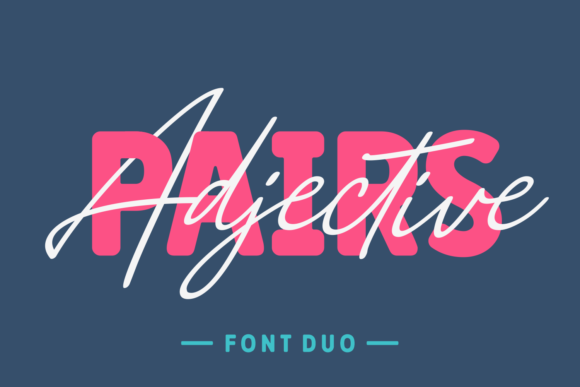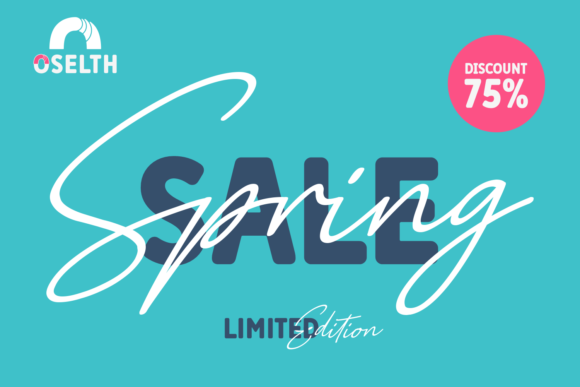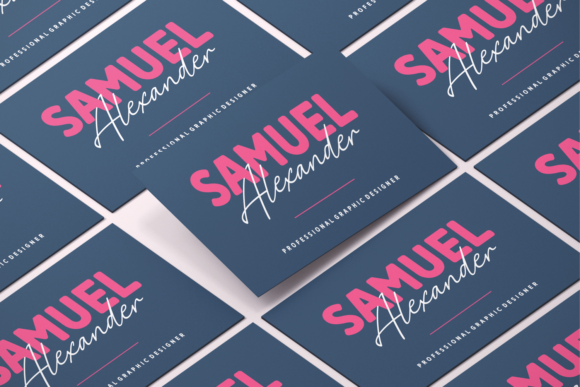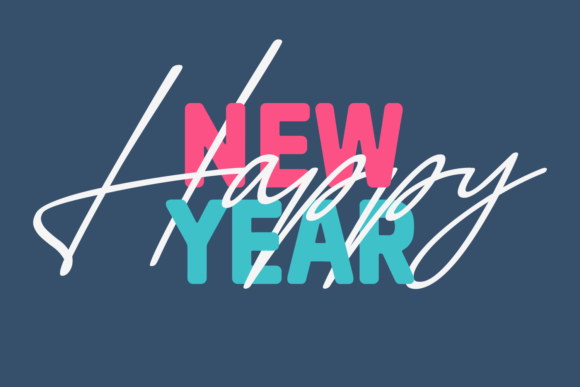
Adjective Pairs Font: Modern Font Pairing for Chic Branding & DIY Projects
About the Adjective Pairs Font
The Adjective Pairs Font offers a perfect balance of form and function for your design needs. Adjective Pairs is a lovely, versatile duo font (script and sans). It features a variety of elements, thin and thick letters as well as an outstanding style. Add it confidently to your projects, and you won’t be disappointed.
Adjective Pairs excels in headline use, particularly for branding projects requiring a touch of elegance and playfulness. Its script face works beautifully for logos and short taglines, while the sans-serif counterpart provides a strong, legible support for secondary text or call-to-actions. Avoid using the script for large bodies of text; its intricate details can become visually overwhelming.
The font’s overall personality is sophisticated yet approachable. It suits brands aiming for a balance of modern style and timeless charm, such as boutiques, cafes, or artisan product lines. Pairing the script with a clean, geometric sans-serif like Montserrat will enhance its modern feel, while pairing it with a classic serif like Garamond adds a touch of traditional sophistication.
Consider using the sans-serif component for body copy in smaller sizes where readability is paramount. Using it alone in UI contexts is also advisable for improved user experience. Avoid using it for long paragraphs.
Adjective Pairs Font Usage Examples
Adjective Pairs Font Example